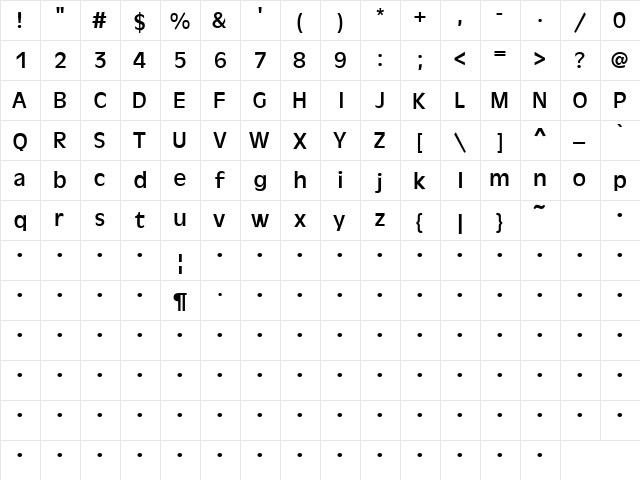
QTAncientOlive Regular
Design Context for QTAncientOlive Typeface
QTAncientOlive offers clean, dependable letterforms without strong stylistic allegiance, making it a practical choice for designers who need flexibility.
Pro Tip: Use QTAncientOlive in both headline and body roles to test its range before committing to a single application.